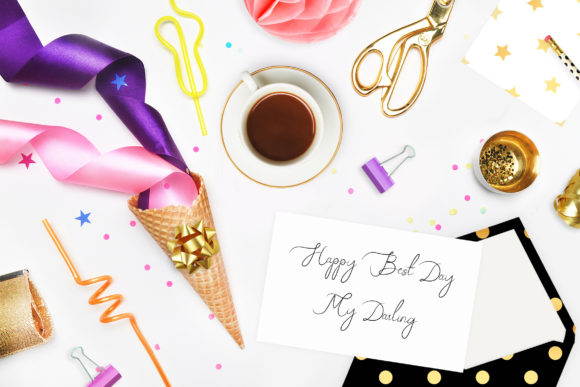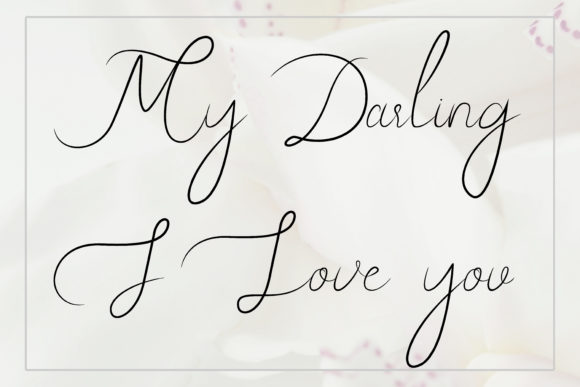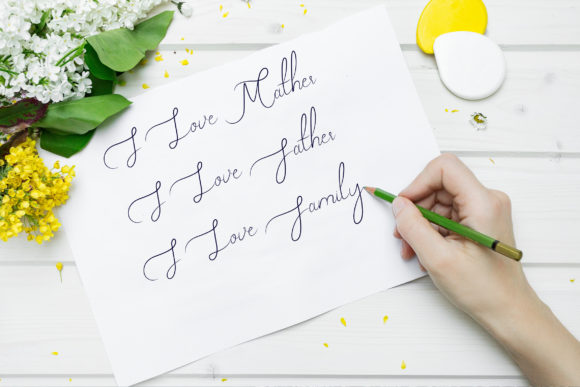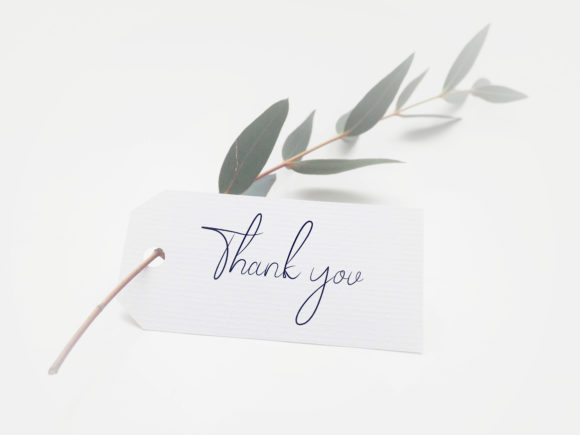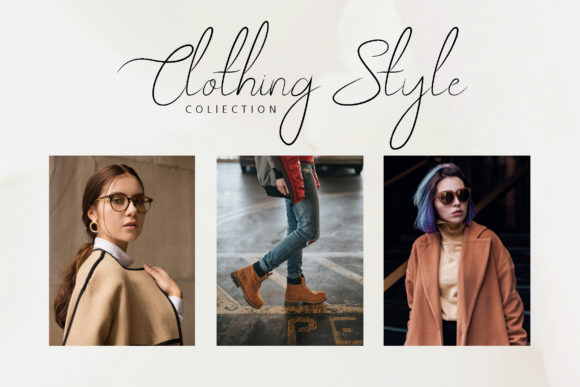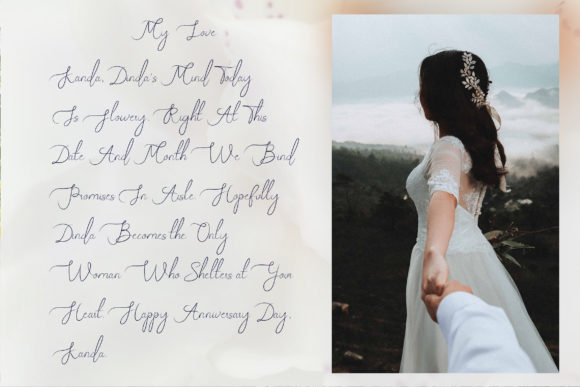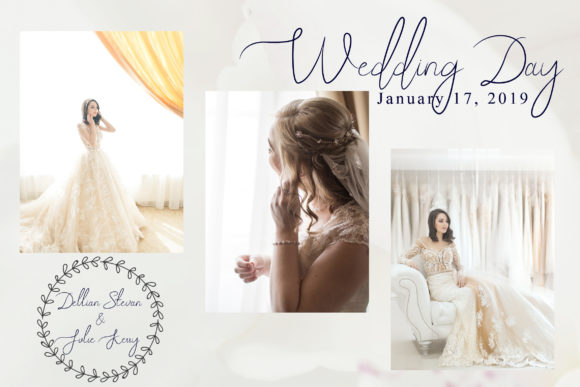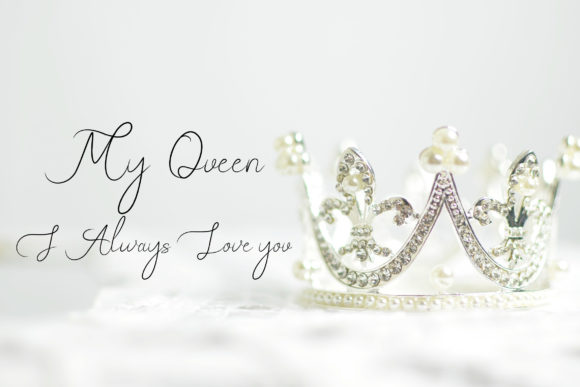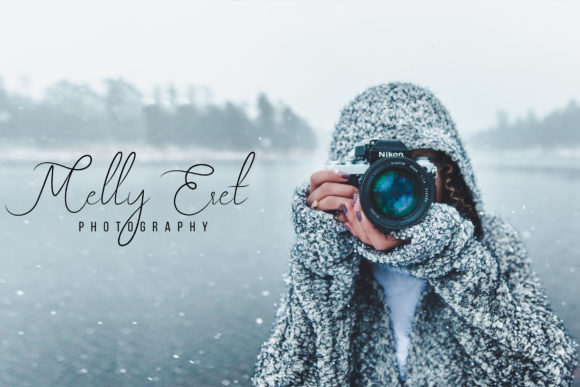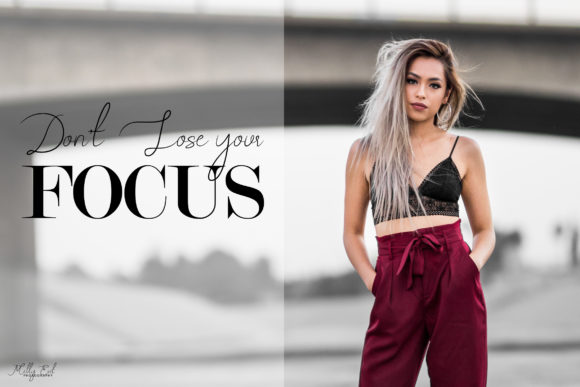
Melly Eret Font
About Melly Eret Font
The Melly Eret is a light, beautiful, crème de la crème modern calligraphy font with playful letters.
It’s perfect for branding, logos, wedding invitations, and cards.